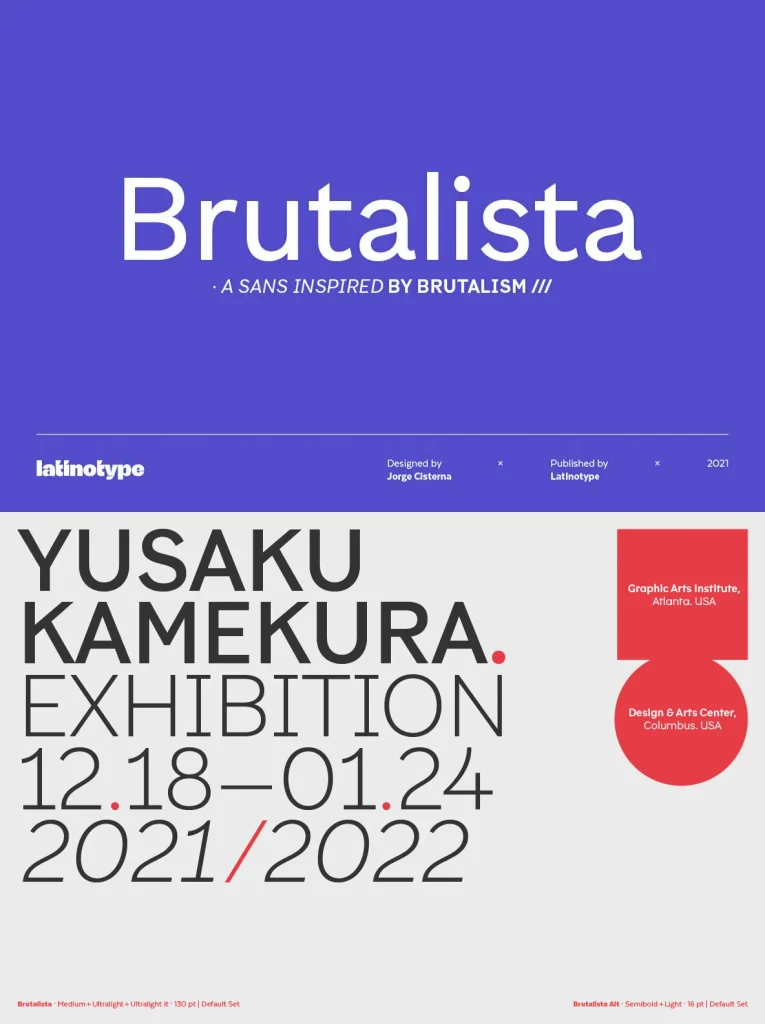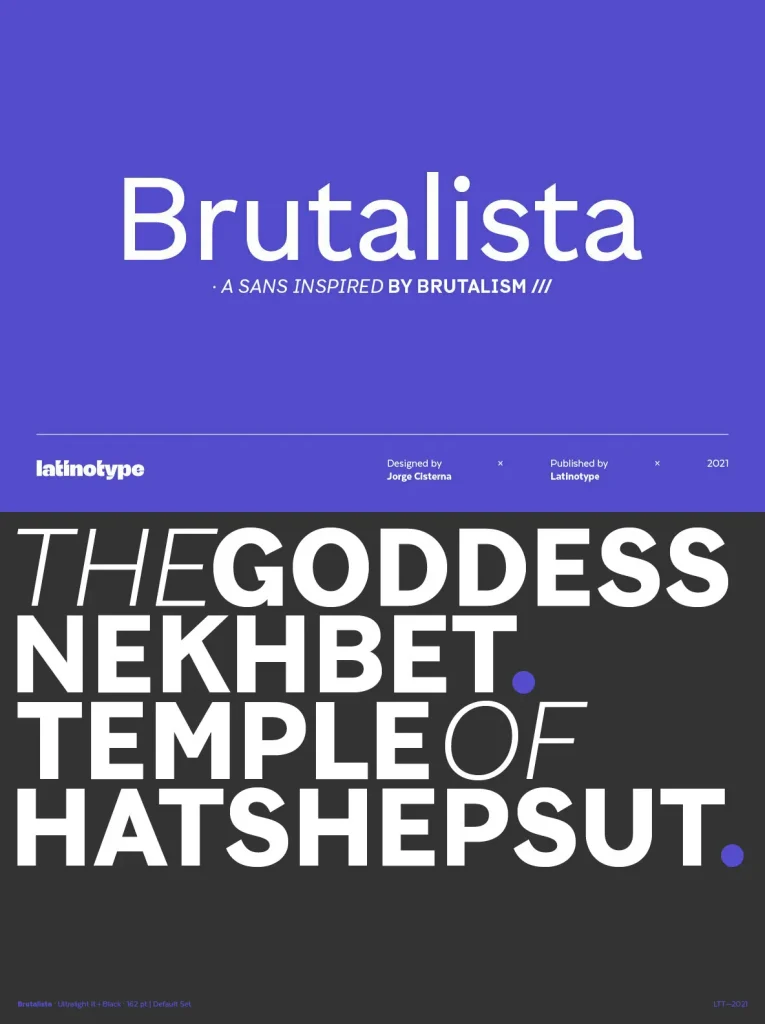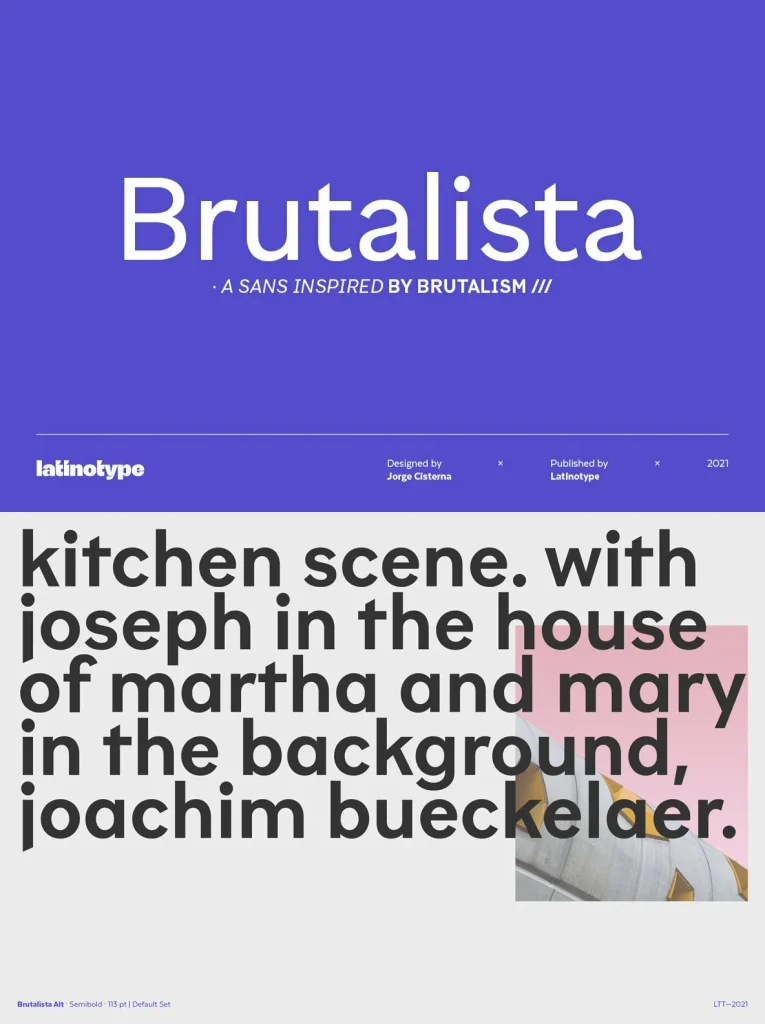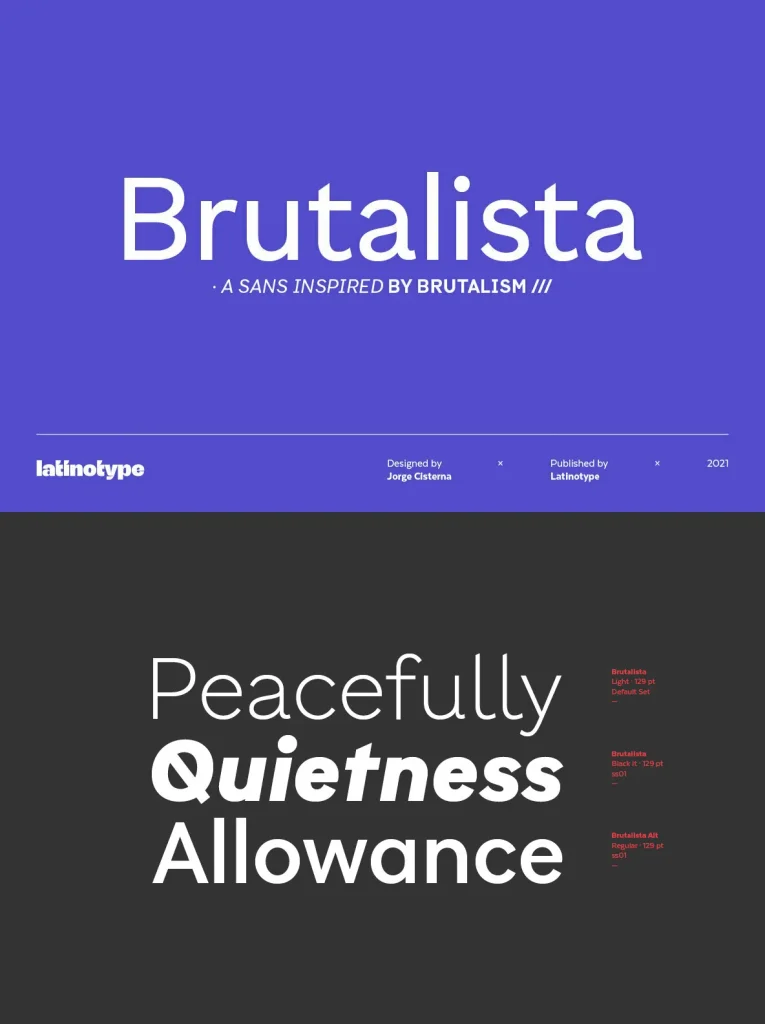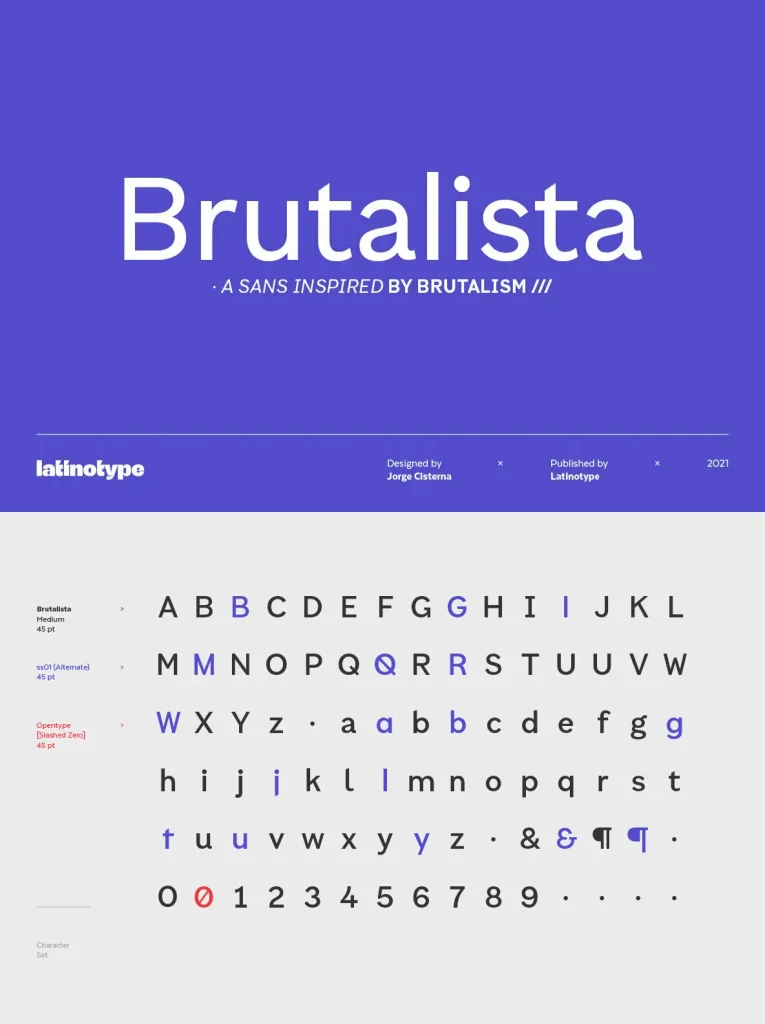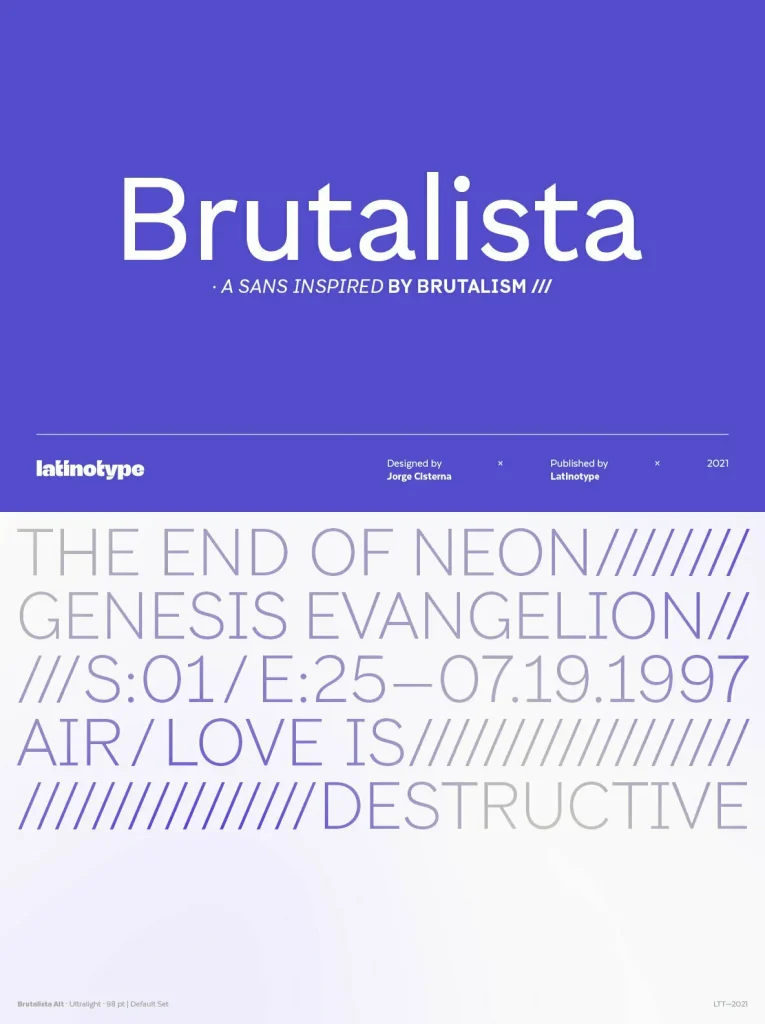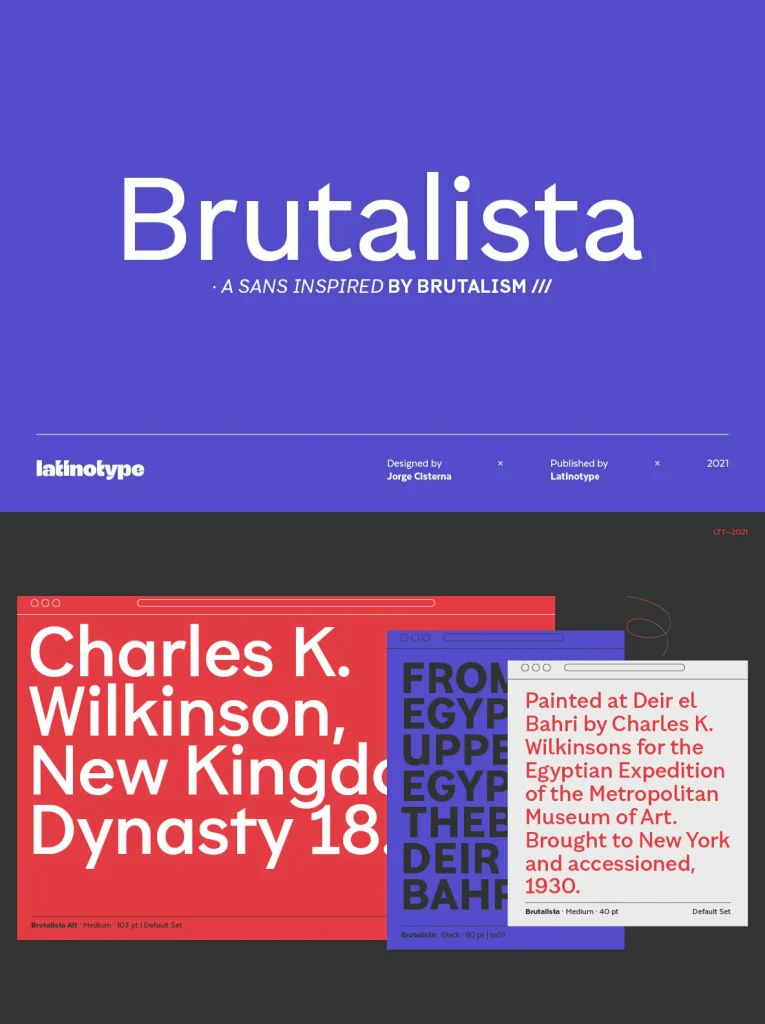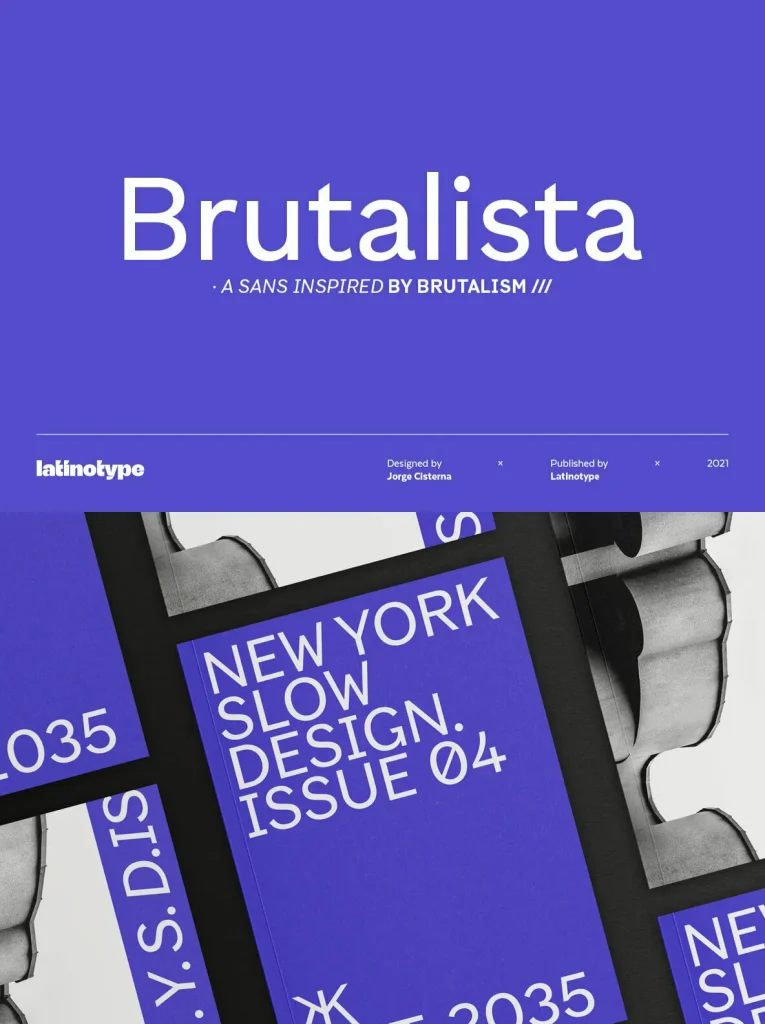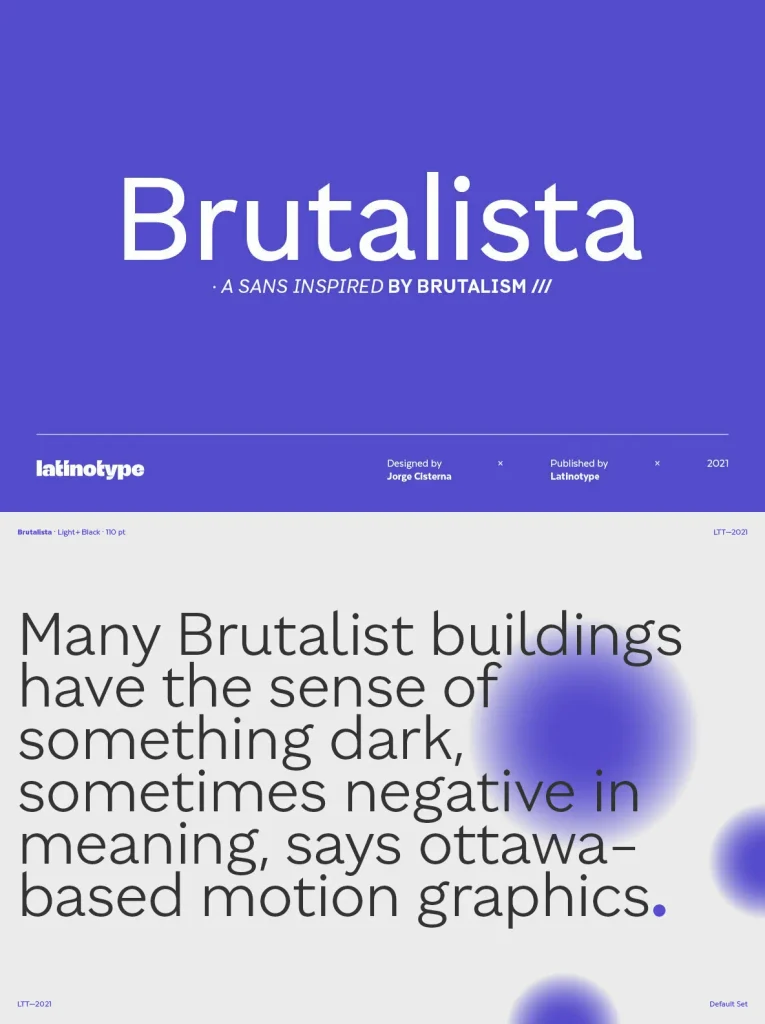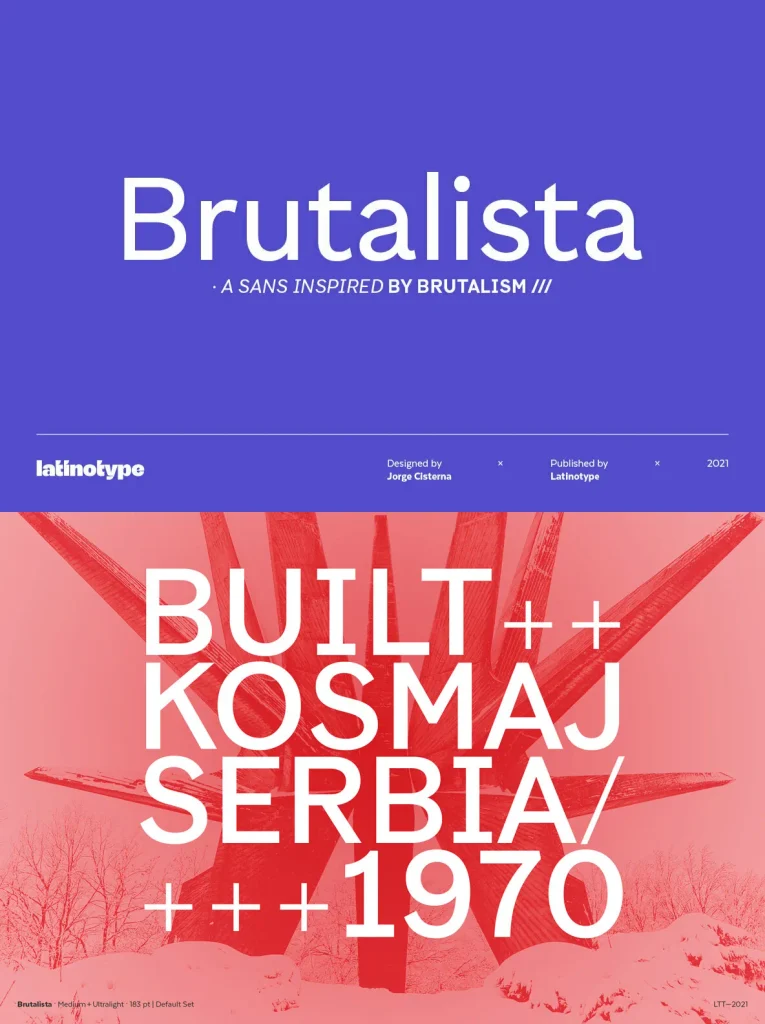
Brutalista Typeface — A Tribute to Architectural Brutalism
Brutalista draws direct inspiration from the striking forms of brutalist architecture, channeling the honest, raw character of exposed materials into modern typography. This typeface stands out for its bold graphic presence, deeply rooted in the traditional grotesque and neo-grotesque movements. Brutalista challenges convention, delivering a distinctive aesthetic that captures attention in editorial, branding, or digital design projects.
Architectural influence with clean, impactful letterforms
Grotesque and neo-grotesque foundation for versatility
Ideal for projects seeking a bold, statement-making presence
Suited for headlines, posters, and editorial layouts